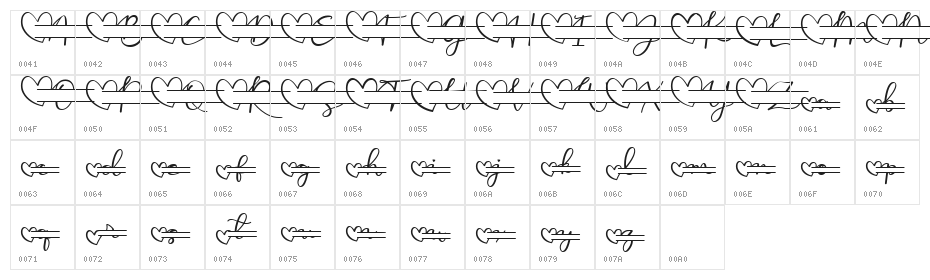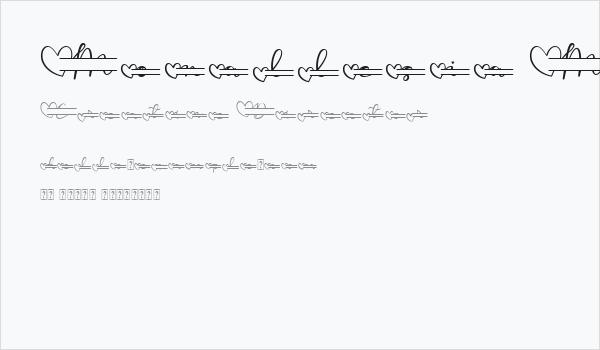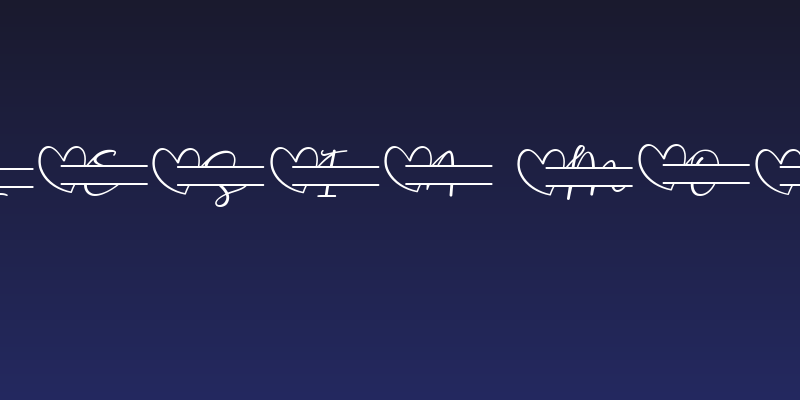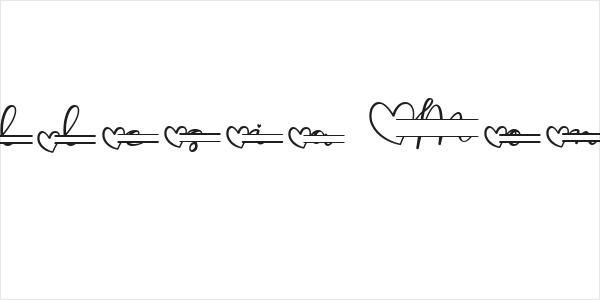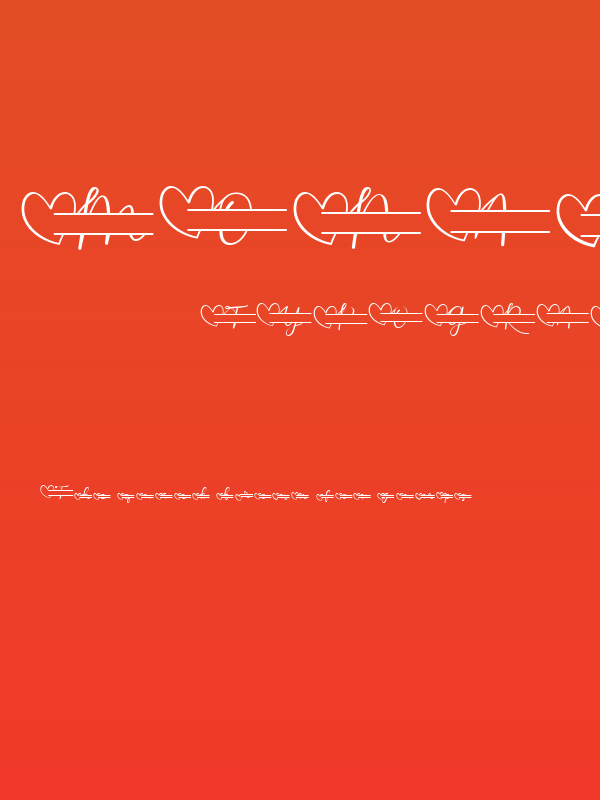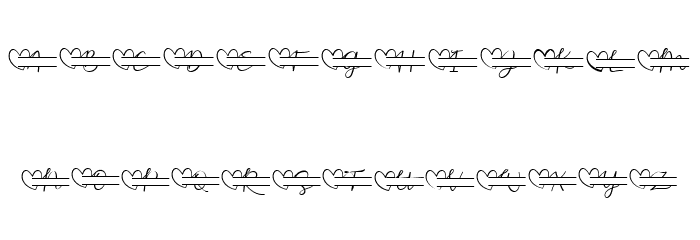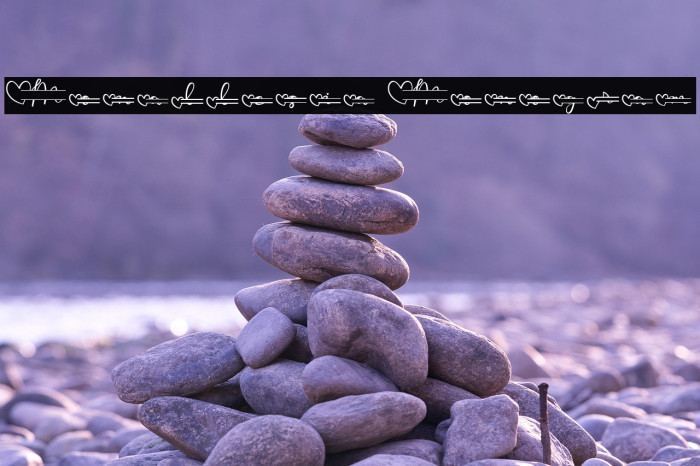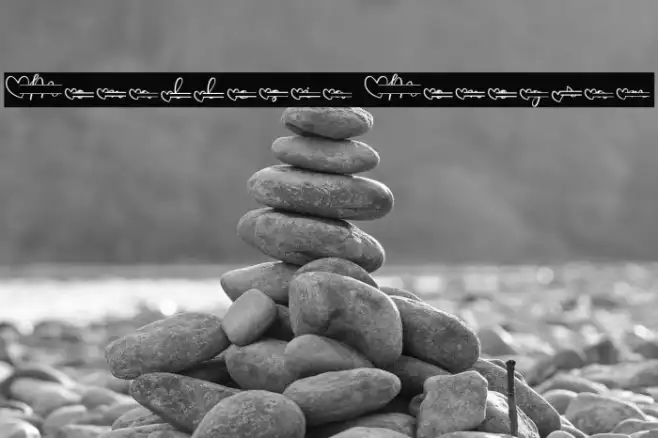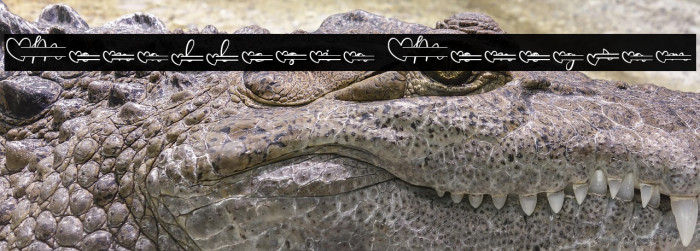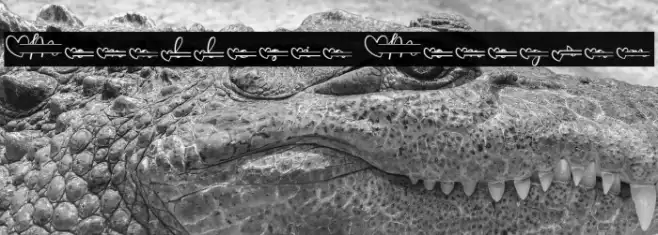
Monallesia Monogram Font
This font features an elegant and decorative style, characterized by its intricate monogram design. Each letter is adorned with heart motifs, creating a romantic and sophisticated appearance. The script-like quality of the font is enhanced by its flowing, cursive strokes, which are both delicate and ornate. The overall aesthetic is perfect for projects that require a touch of elegance and personalization, such as wedding invitations, branding for luxury products, or personalized stationery. The font's unique design makes it stand out, offering a blend of classic charm and modern flair.
| Proposed Projects | Ideal for wedding invitations, luxury branding, personalized stationery, and romantic designs. |